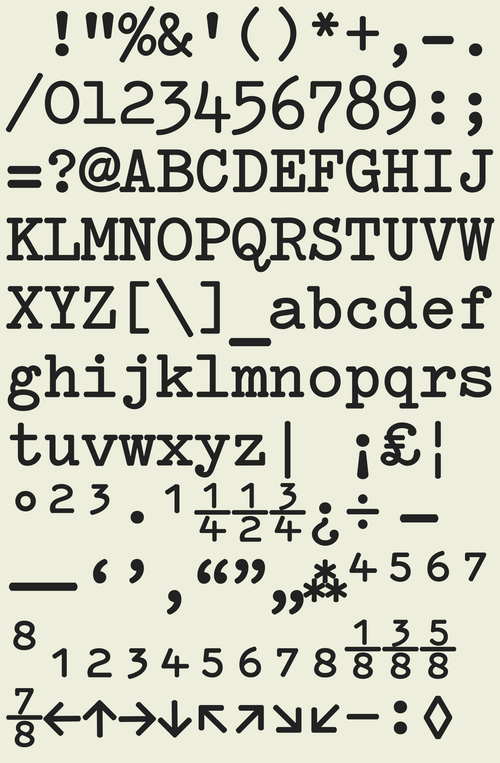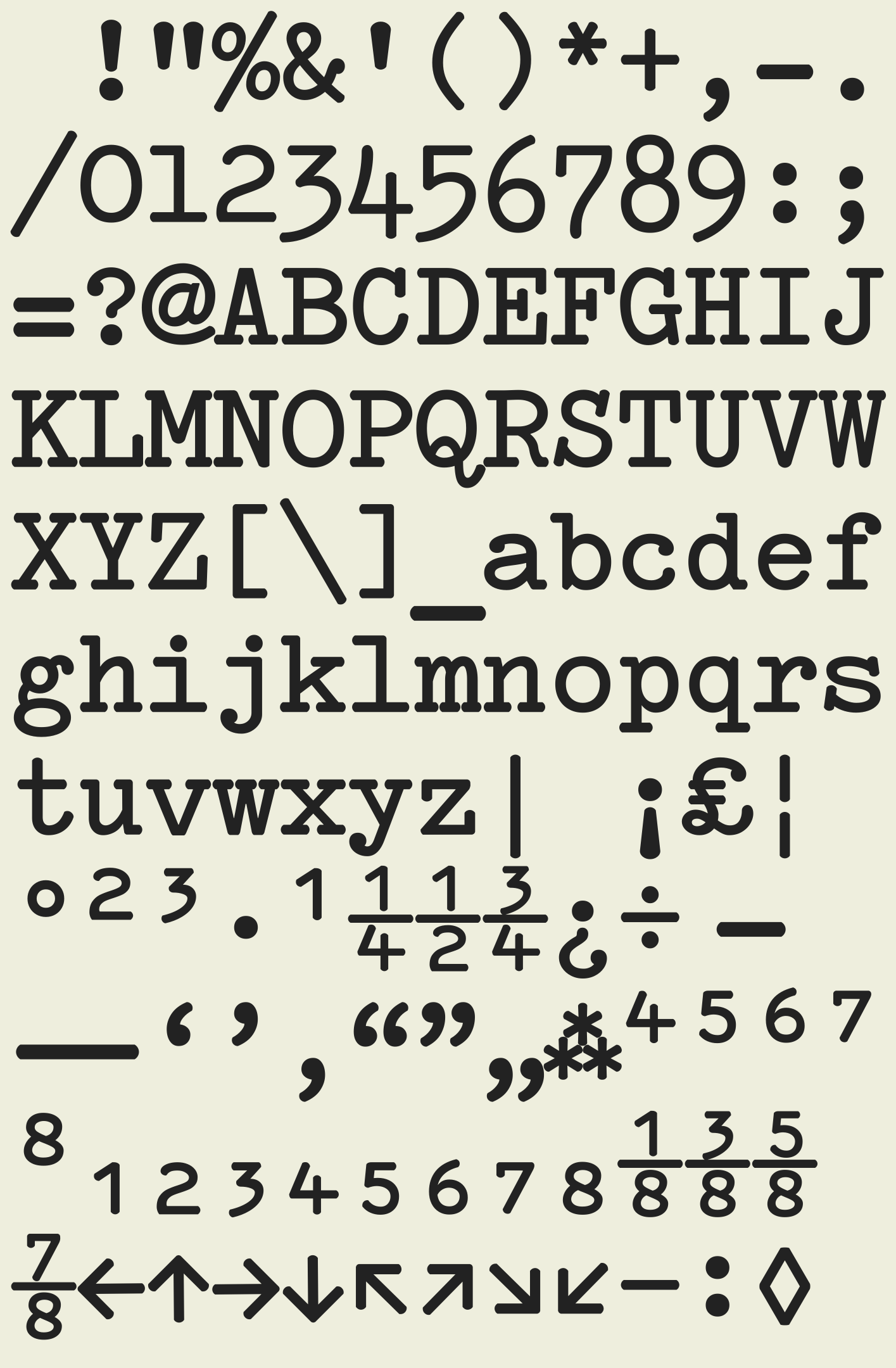
More glyphs for Typewriter B
I invite you to try the early access for the extended repertoire that has many more glyphs for “fine typography”. Including curly quotes, dashes, small figures for superior and inferior numbers, and wayfinding arrows.
Typewriter B Font
A typewriter font